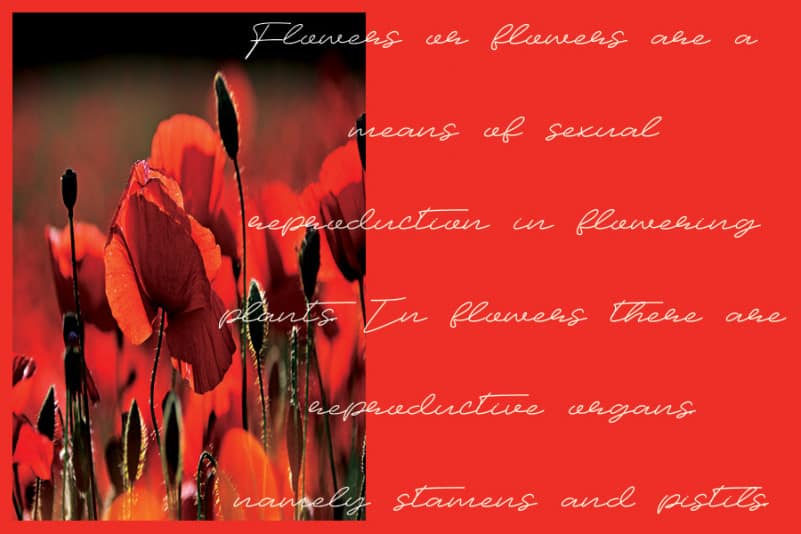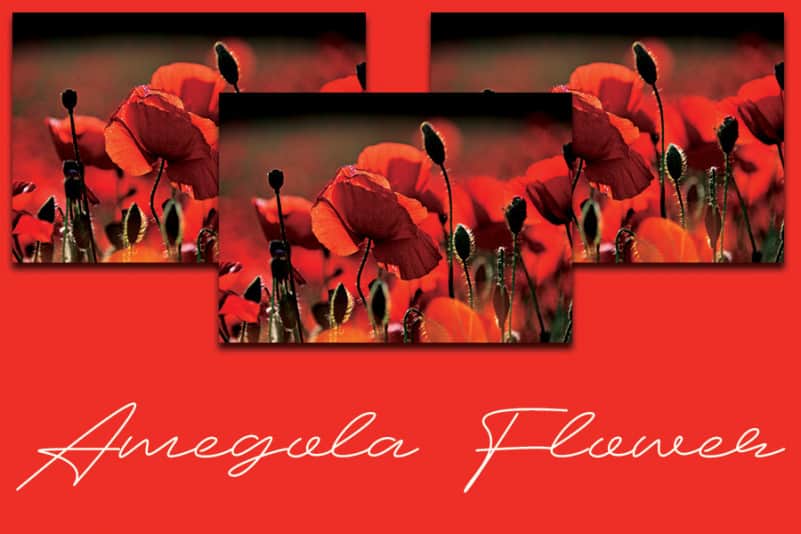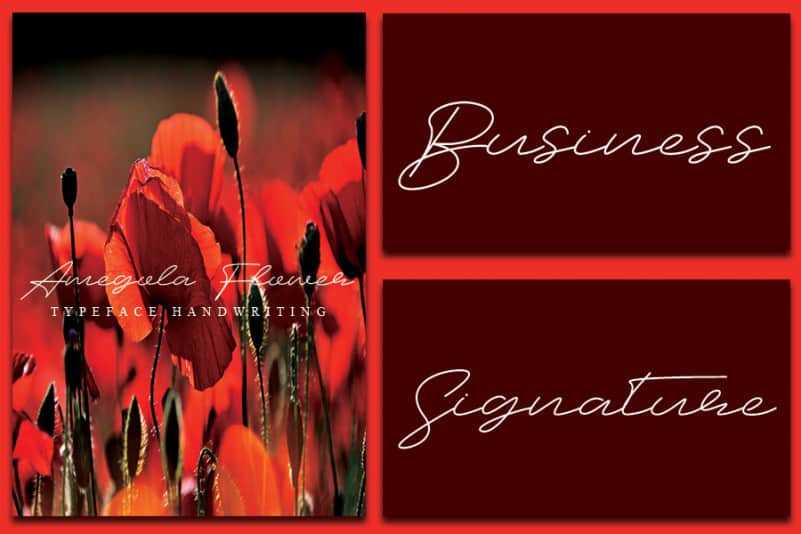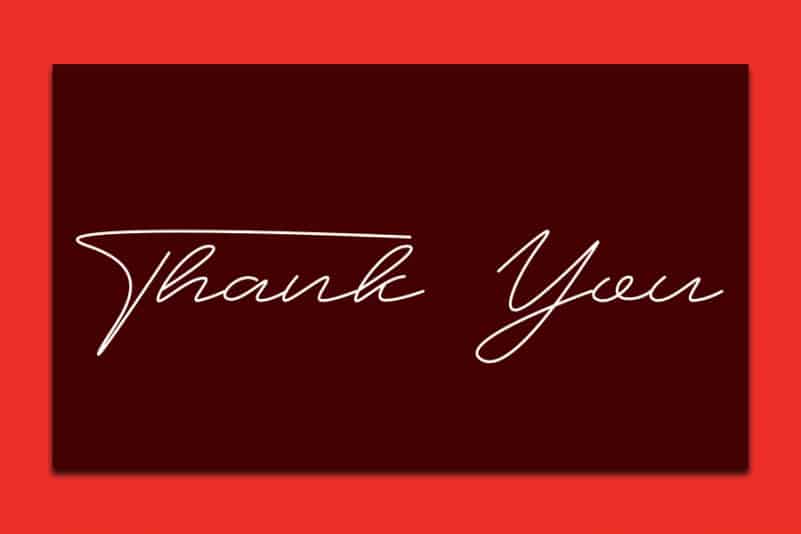
Amegola Flower Handwritten Font
Amegola Flower Handwritten Font is a relaxed and cursive handwritten font. Timeless and elegant, this font will be the perfect choice for any design idea you can think of!